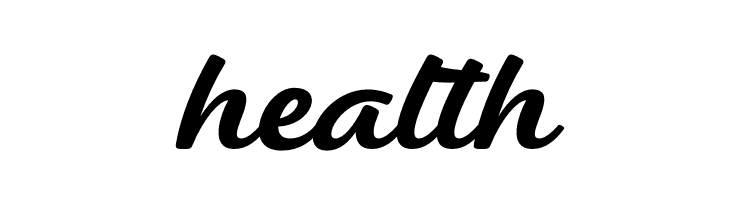
A playful, casual handwritten font with smooth, flowing lines.
A bold, brush-stroke font with a textured, artistic style.
A dynamic, brush-style script font with bold, slanted strokes.
A bold, distressed font with a grunge, textured style.
A modern, slanted, and condensed font with bold uppercase and consistent lowercase characters.
A bold, brushstroke font with an energetic and artistic style.
A playful, handwritten font with rounded, consistent strokes and a casual feel.
A modern, geometric sans-serif font with uniform strokes and high legibility.
A bold, flowing script font with elegant, cursive letterforms.
An ornate and decorative font with intricate flourishes and a calligraphic style.